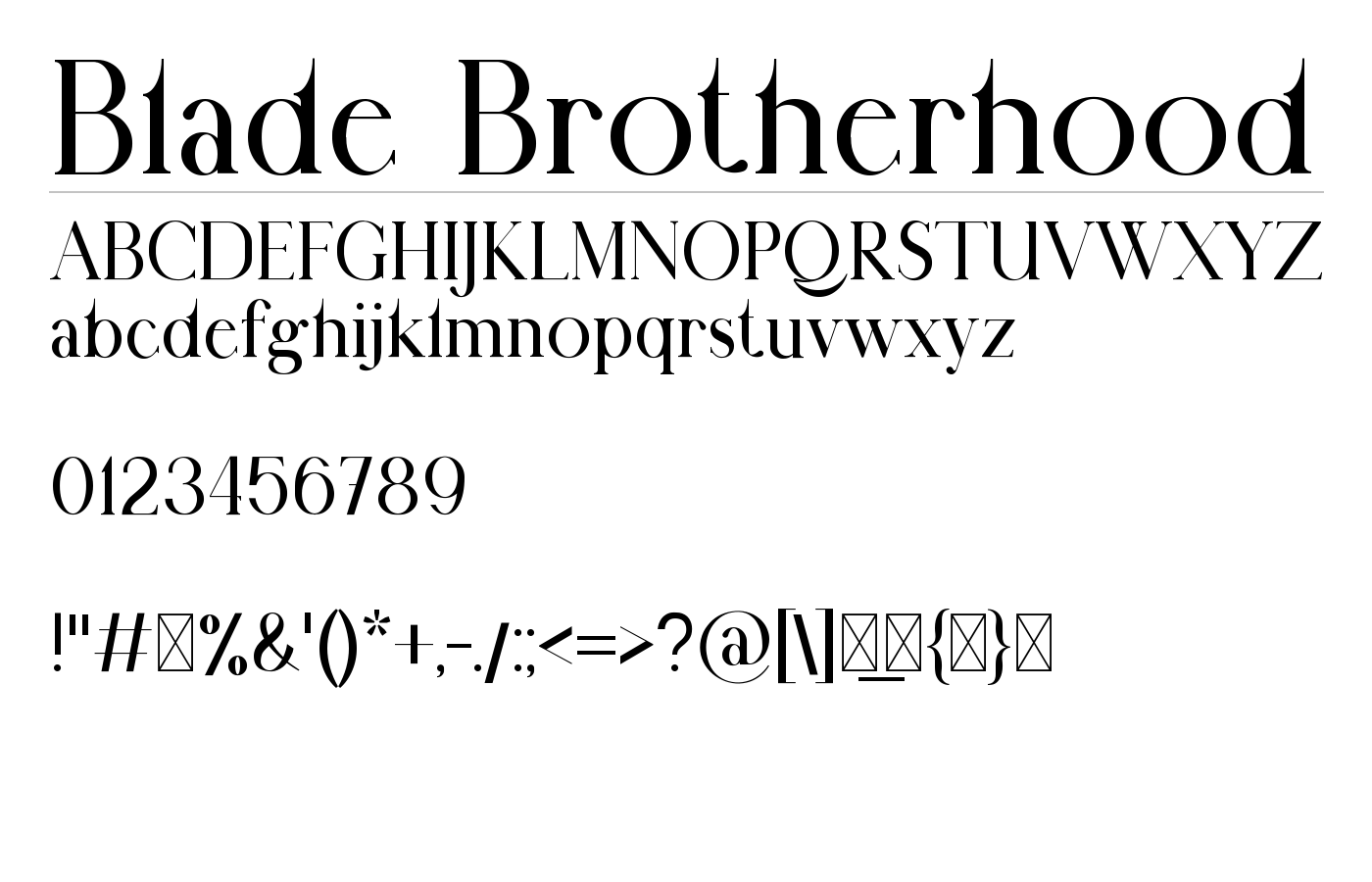
Blade Brotherhood is an elegant serif font that combines strong vertical strokes with sharp, pointed serifs and distinctive flared details, giving it a refined yet bold appearance. Its high contrast between thick and thin lines, along with its tall x-height and sophisticated letterforms, makes it ideal for stylish branding, editorial headlines, and luxury design projects where a dramatic and classic impression is desired.
Blade Brotherhood Font
About Blade Brotherhood Font